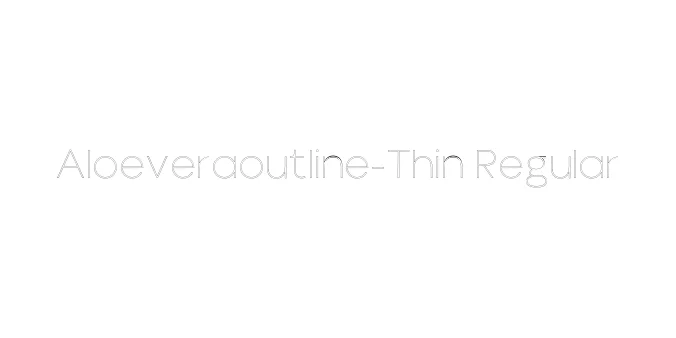
Aloeveraoutline-Thin Regular
Designed by Naharshad
Aloeveraoutline-Thin Regular is a sophisticated and modern display font designed to bring elegance and clarity to contemporary designs. Its refined, hollowed-out aesthetic provides a minimalist feel that is perfect for high-end branding and editorial layouts where subtlety is key. The design focuses on clean geometry and thin strokes that create a sense of breathability in visual compositions.
Developed as a lighter variant of the original Aloevera family, this thin outline version excels in large-scale applications like signage, luxury packaging, and headers. The delicate balance of line weights ensures that it remains legible while adding a touch of artistic flair to digital and print media alike. It is particularly effective when layered over photography or used in minimalist web environments.
Aloeveraoutline-Thin Regular Best Uses
Ideal for luxury logos and fashion-forward brand identities.
Perfect for magazine headlines and stylish subheaders.
Great for hero sections and artistic web typography.
Excellent for high-end product labels and minimalist box designs.